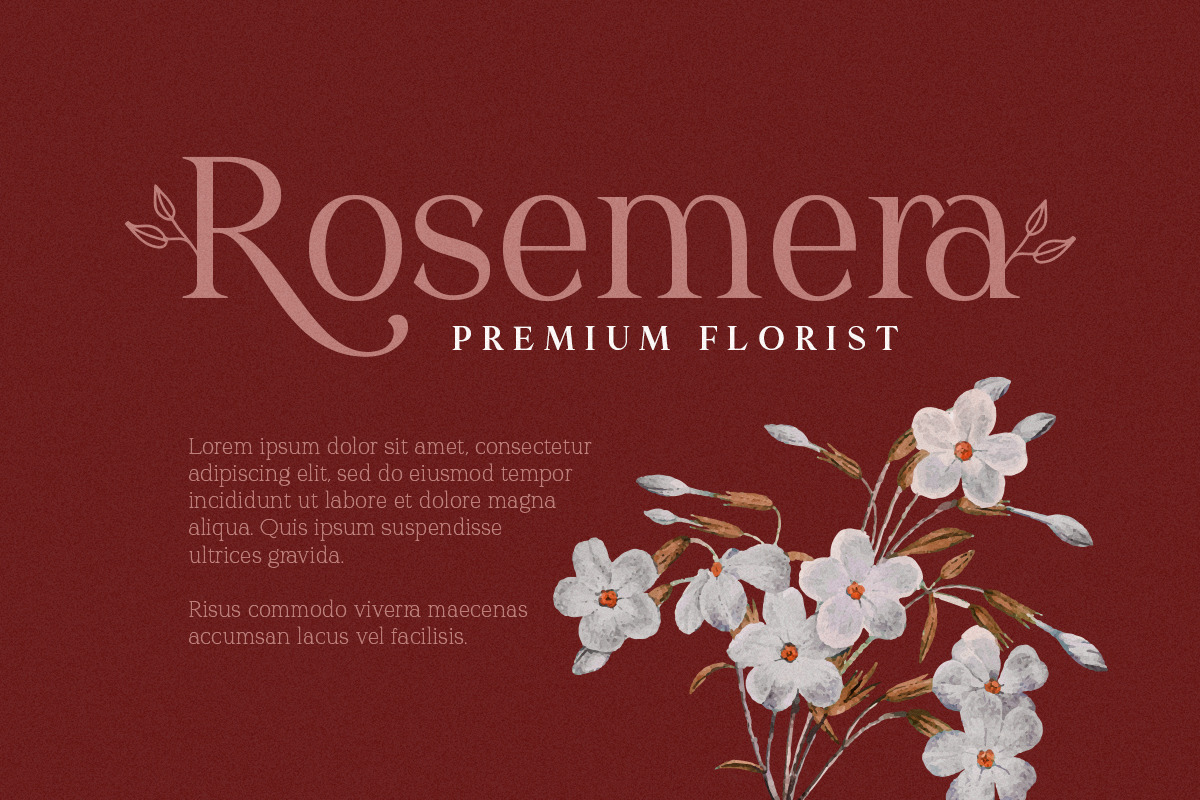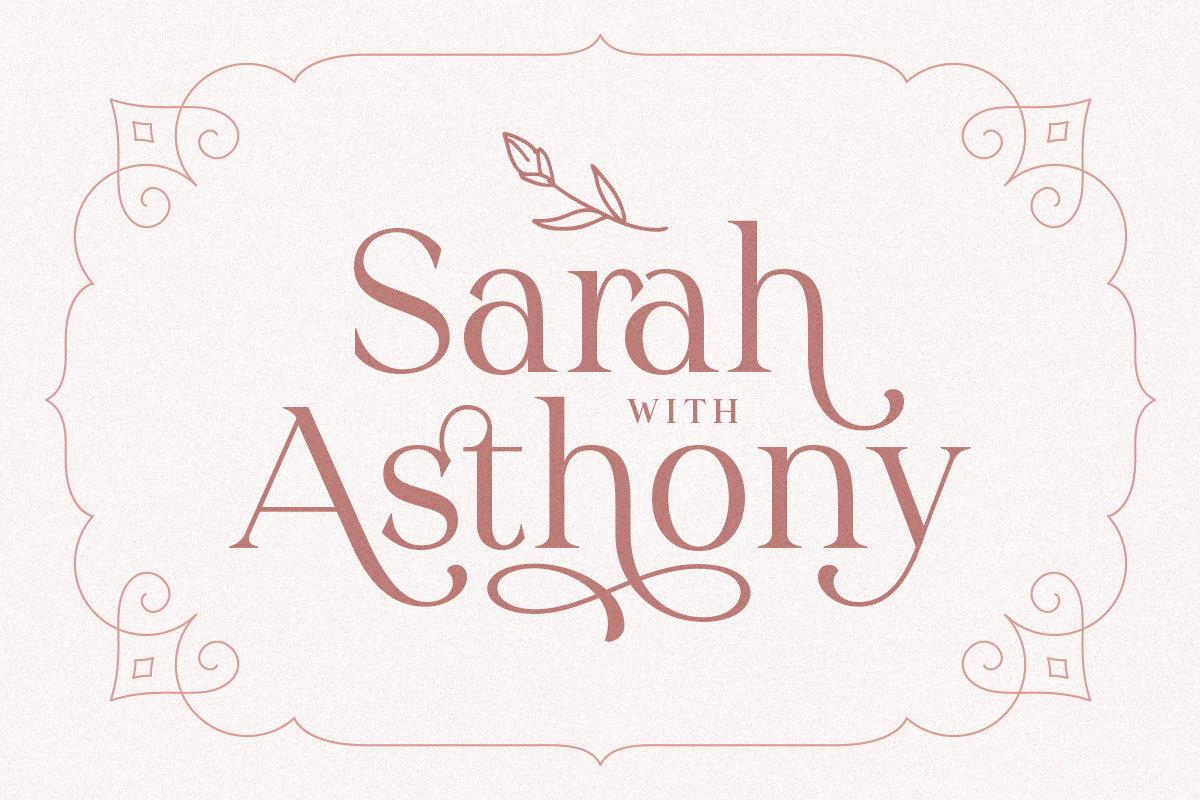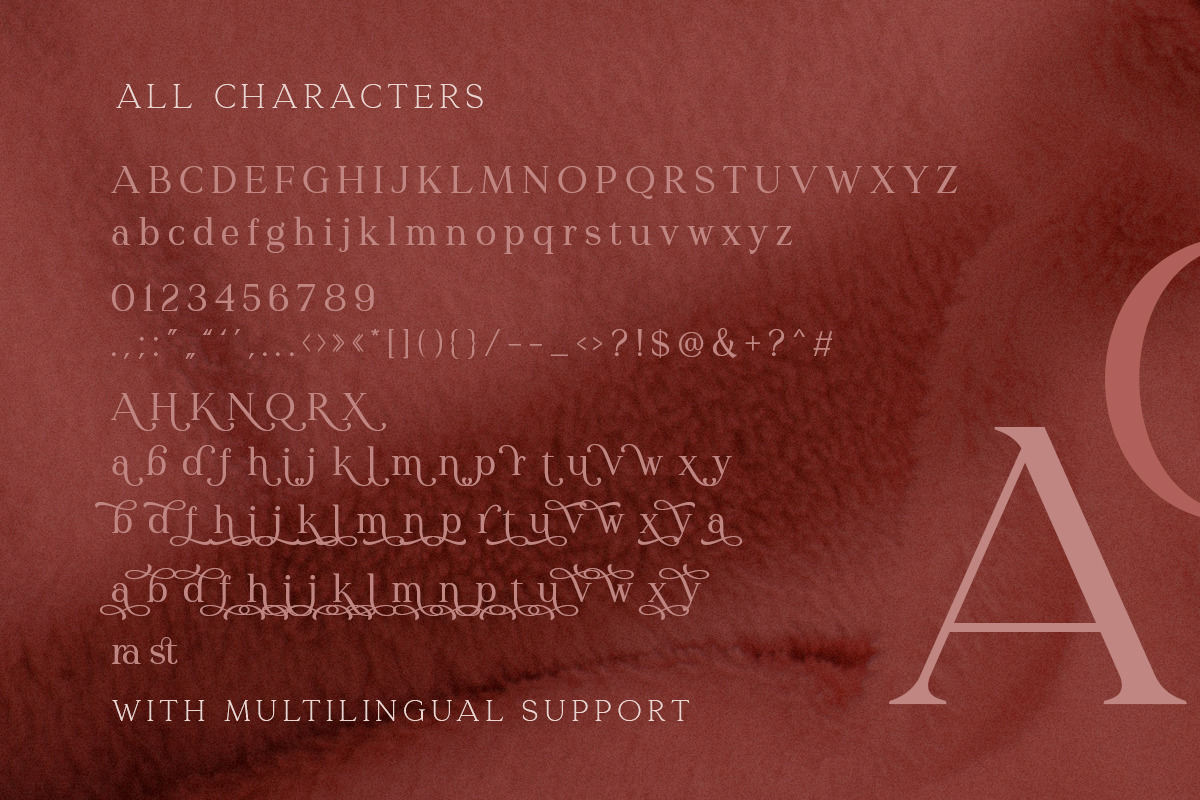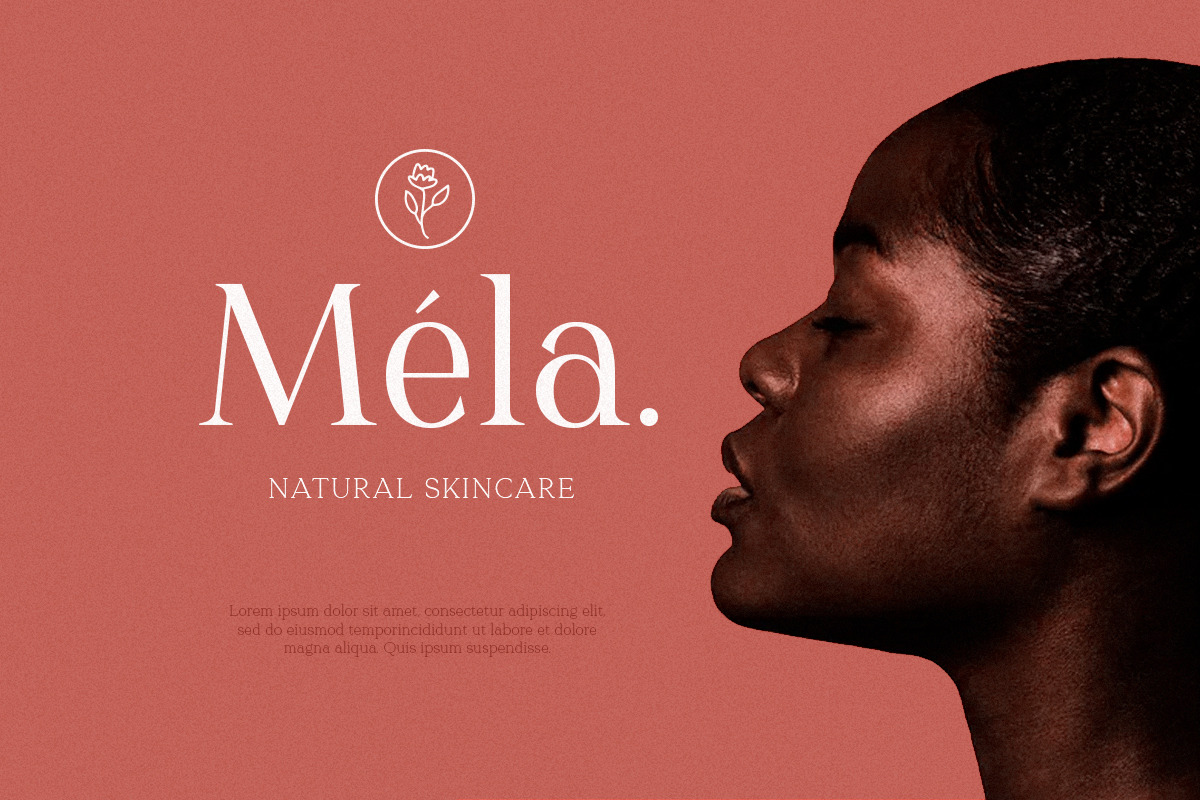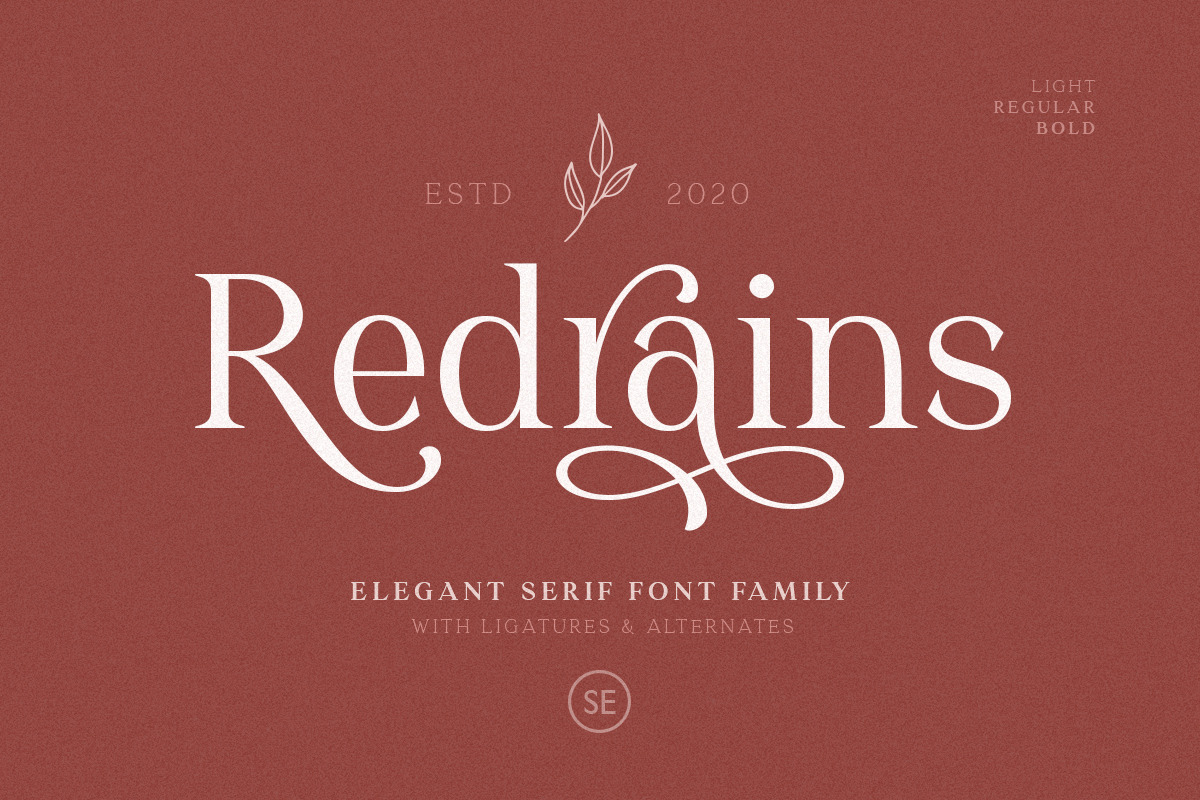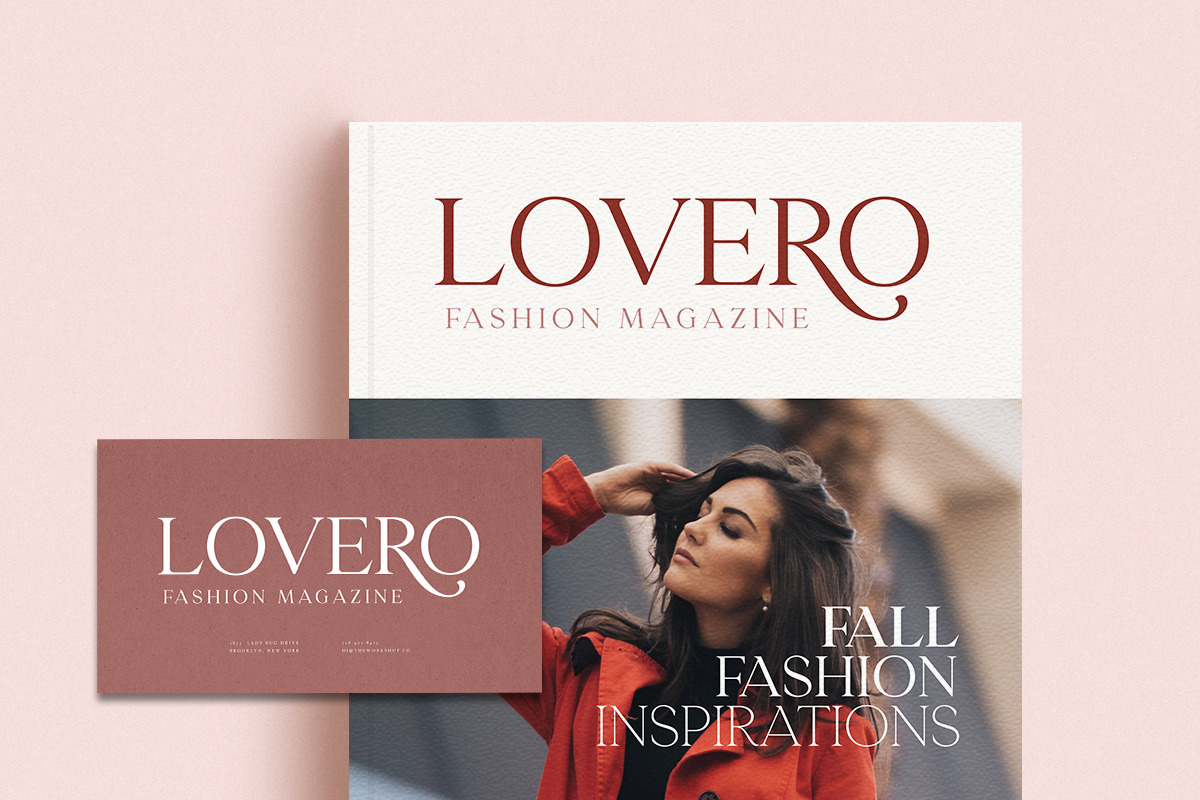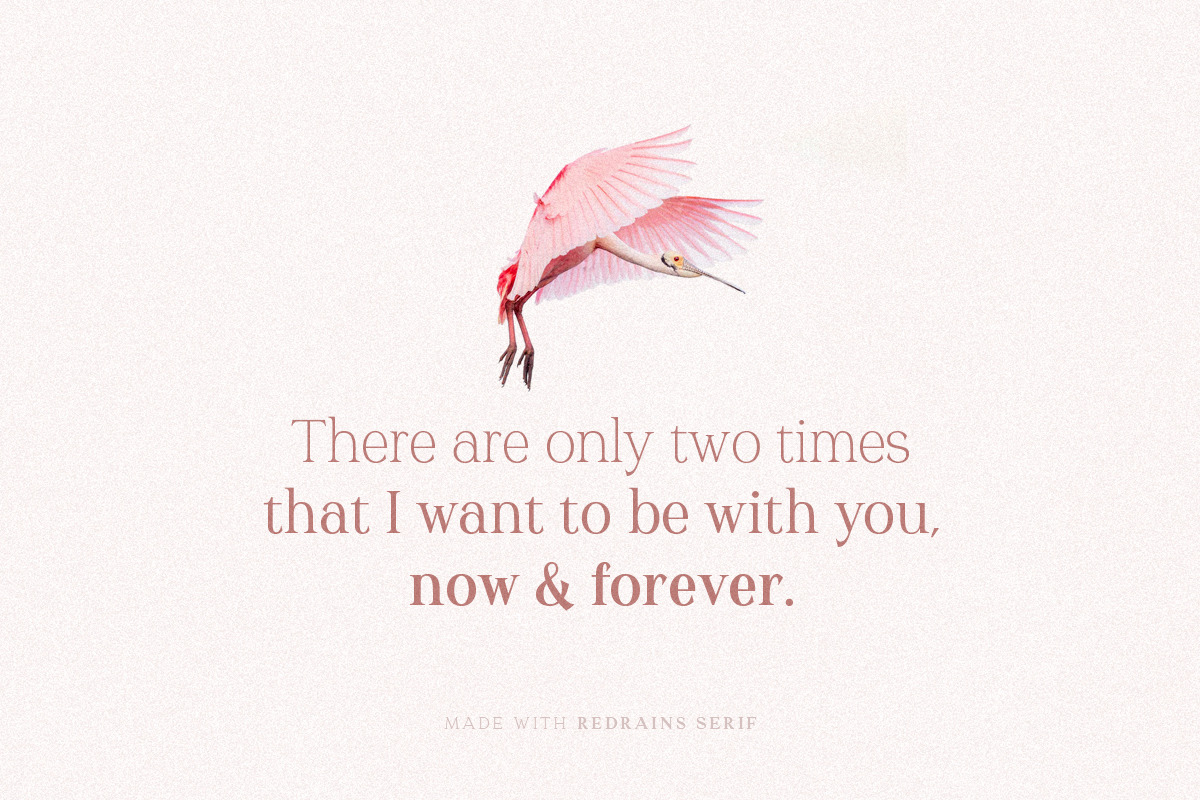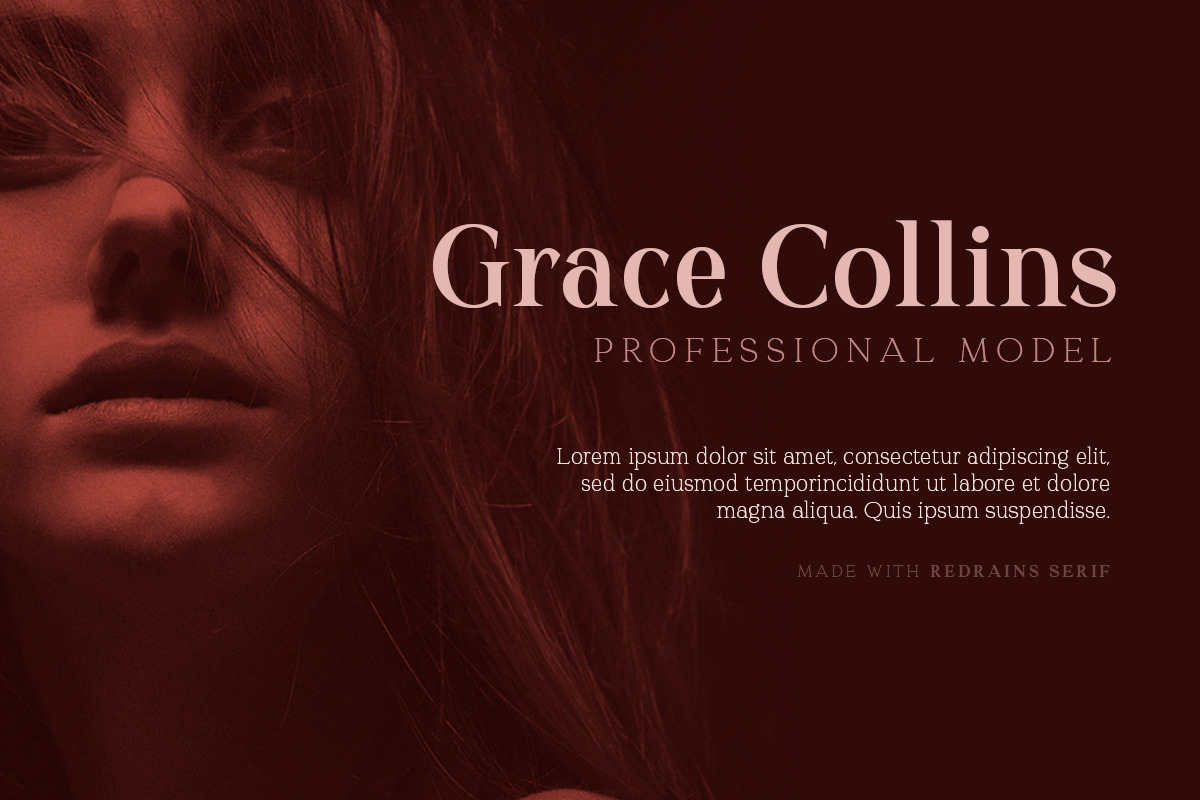
Redrains - Modern Serif Family
Introducing, Redrains - An Elegant Serif Font Family with 3 special weight style!
Redrains is a classic and modern serif with 3 weight style and a bunch of alternates for each characters and ligatures that will make your presentation or logo even more stunning and stand out! With three style that you can use for several purpose! You can use this font as a complement of your script collections or use this font as a stand alone font for several purposes such as a wedding invitations or even your own brand! This fonts support Multi Language and already PUA Encoded!
- Extended Multi language
- Alternates for each characters